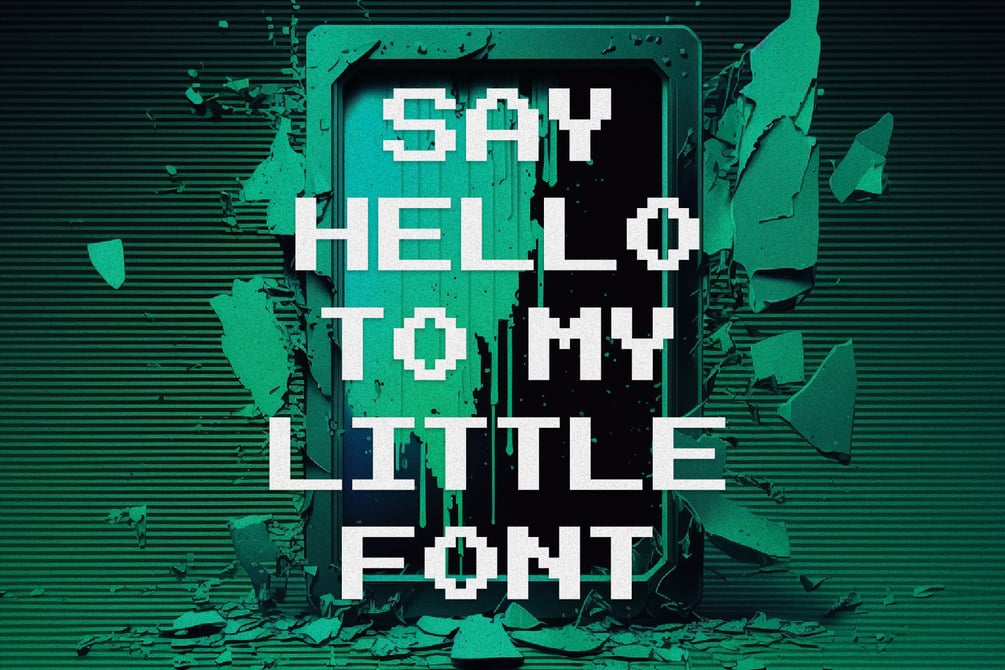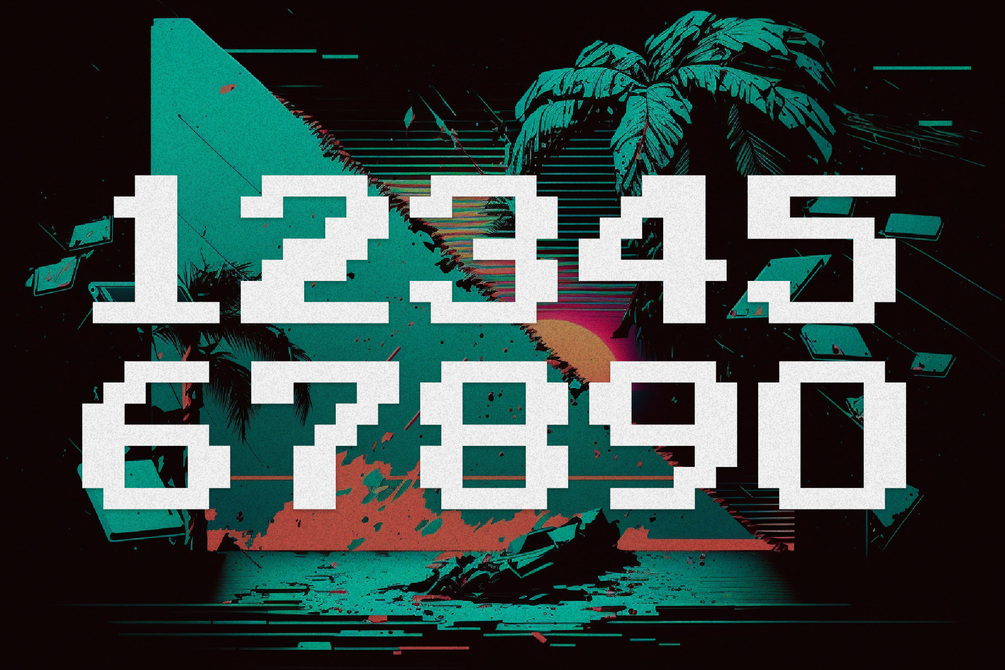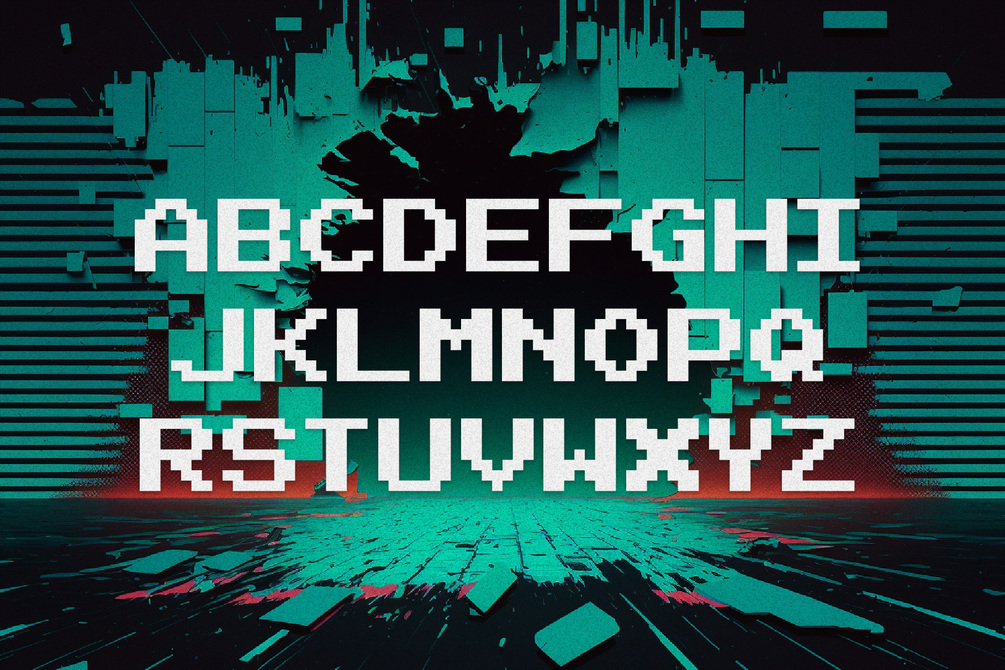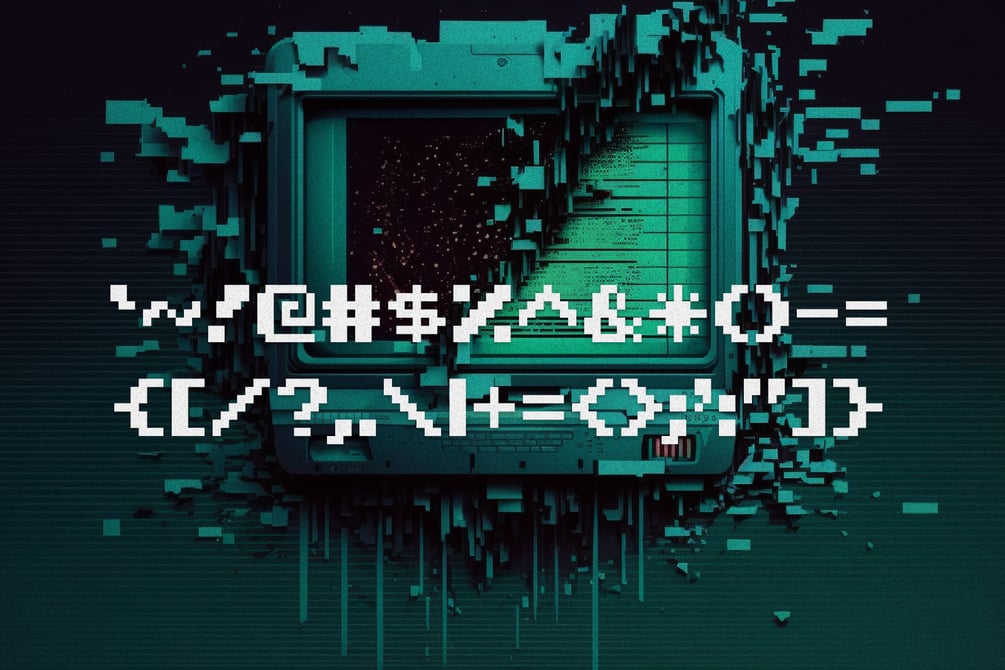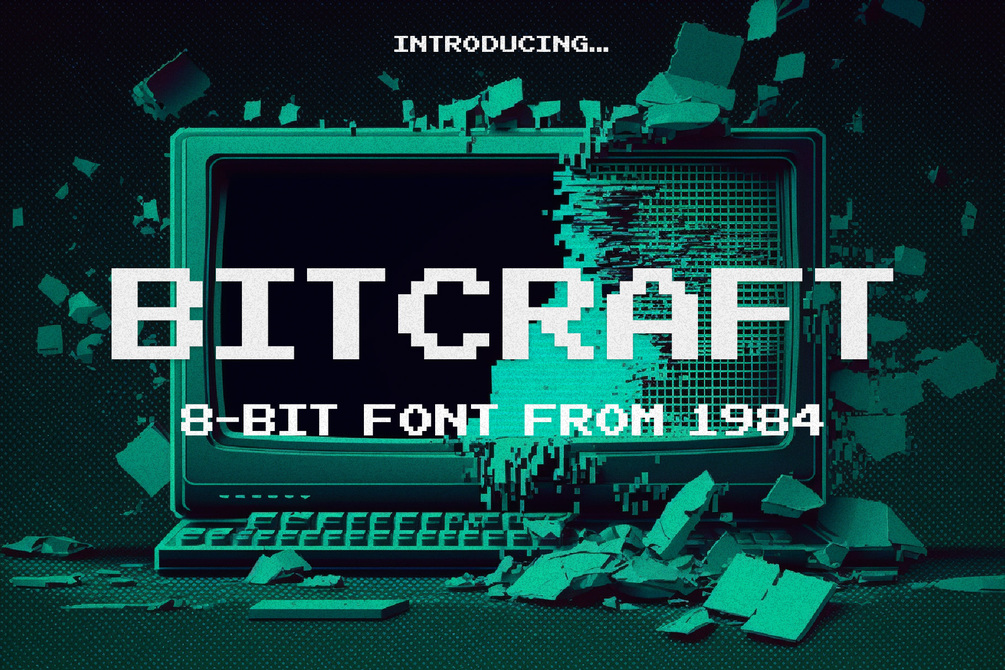
Bitcraft - Computer Font
Bitcraft is a fun display font from the 80s! It's perfect for 8-bit styled illustrations, icons, logos, posters, and t-shirts. Test it out below!